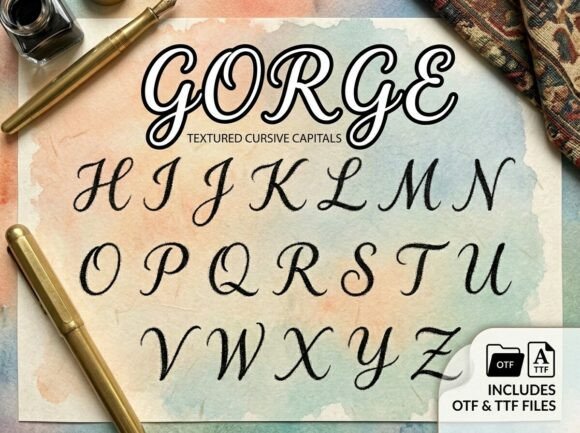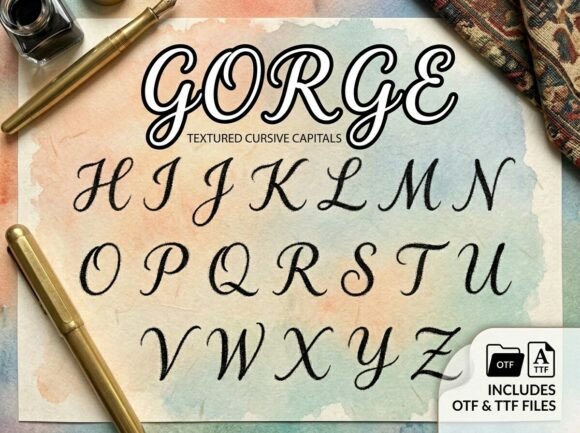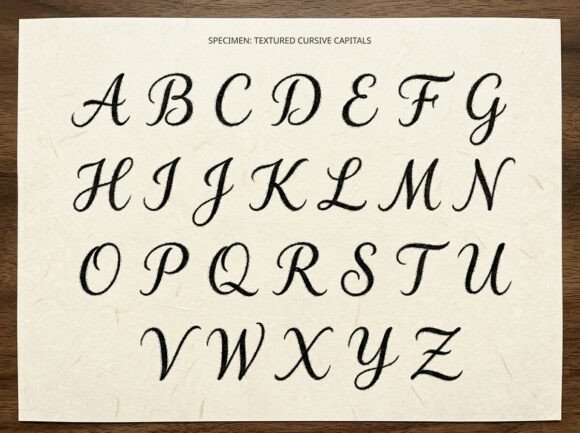
The Moment of Creative Inspiration
Have you ever stared at a blank canvas, eager to bring a new idea to life? That spark of creativity can be exhilarating, but it’s often the tools we use that make all the difference. For designers seeking to elevate their work, the right font can be the catalyst for a truly show-stopping piece.
Enter the Gorge Font, a stunning decorative display font designed to take center stage. With its unique artistic elements and strong visual personality, this font is perfect for creators who want to break free from the ordinary. Whether you’re crafting bold headlines, artistic logos, or creative packaging, the Gorge Font is sure to make your work stand out.
This versatile font is a valuable addition to any designer’s toolkit, offering a professional and polished finish that’s sure to impress. With its compatibility across all devices, the Gorge Font is an essential tool for any creative looking to make a lasting impact.
Gorge Font Key Features
- Size and Resolution: Gorge Font is designed to be highly legible at various sizes, from 8pt to 72pt, and supports resolutions up to 1200 DPI, making it suitable for both digital and print applications.
- Unique Characteristics: Gorge Font features a unique blend of modern and vintage elements, with intricate details and subtle textures that give it a distinctive, hand-crafted look.
- Font Family: Gorge Font is a part of a comprehensive font family that includes multiple weights, from Light to Bold, as well as an Italic and a Script version, offering users a wide range of creative possibilities.
- Language Support: Gorge Font supports a broad range of languages, including Latin, Cyrillic, Greek, and many others, making it a versatile choice for international applications.
- kerning and Ligatures: Gorge Font features advanced kerning and ligature settings, ensuring that the font looks its best in a wide range of applications, from body text to display headlines.
Gorge Font Review
I recently had the chance to work with the Gorge Font, and I must say it’s an interesting experience. ✨ One thing that really stands out is its unique blend of modern and vintage elements, which can add a touch of elegance to any design. The font’s high x-height and sturdy feel make it perfect for headings and titles.
Another aspect that I appreciate is its wide range of weights and styles, which offer a lot of flexibility in terms of customization. ✨ This makes it a great choice for designers who need to create a consistent look and feel across multiple elements.
However, I did encounter a few limitations that might be worth considering:
- ⚠️ The font can be a bit too ornate for some designs, which might make it difficult to read at smaller sizes.
- ⚠️ The font family is relatively small, which might limit its versatility in certain design contexts.
- ⚠️ Some of the weights and styles might feel a bit inconsistent in terms of design quality.
Overall, I think the Gorge Font is a solid choice for designers who are looking for a unique and elegant font. While it has some limitations, its strengths far outweigh its weaknesses. With a bit of careful planning and design consideration, I think it can be a great addition to any design project.
Gorge Font: A Practical Application Guide
The Gorge Font is ideal for use in headings, titles, and other large text elements. It’s also great for use in creative projects, such as posters, flyers, and social media graphics. Additionally, the font can be used to add a touch of elegance to business cards, resumes, and other professional documents.
Tips for Getting the Most Out of Gorge Font
To get the most out of Gorge Font, try combining it with bold colors and simple backgrounds to create a striking visual effect. You can also experiment with different font sizes and styles to add depth and interest to your design.